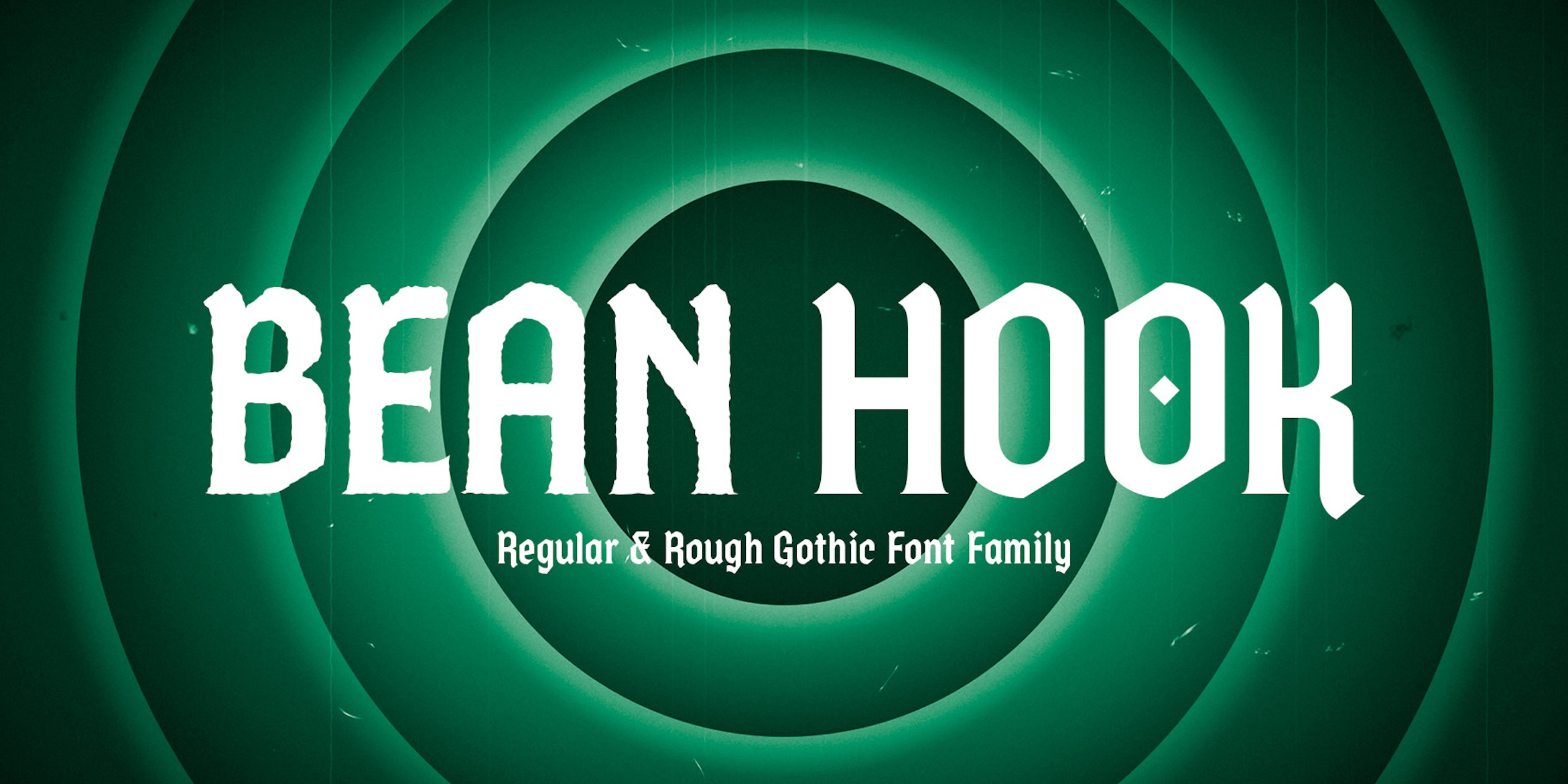
Bean Hook Font is perfect for a wide range of design applications including coffee shop branding, artisanal cafe signage, organic product packaging, rustic restaurant menus, farm-to-table marketing materials, cozy bistro graphics, specialty coffee roaster logos, agricultural company branding, handcrafted food labels, and warm editorial layouts.
What makes Bean Hook Font exciting is its charming rustic appeal and handcrafted warmth that perfectly captures the authentic spirit and artisanal quality of small-batch coffee culture and farm-fresh food experiences. This delightful typeface brings a sense of organic authenticity and cozy comfort to any project with its carefully crafted letterforms that showcase natural curves and handmade character details reminiscent of traditional coffee bean hooks and artisanal craftsmanship. The font's earthy character shapes and inviting proportions create an atmosphere of genuine hospitality and artisanal quality that resonates with audiences seeking authentic experiences, sustainable practices, and handcrafted excellence, making it an ideal choice for brands emphasizing organic quality, local sourcing, and artisanal craftsmanship.
The Bean Hook Font family includes multiple weights and styles designed to accommodate various artisanal and organic design requirements. The collection typically features regular, bold, light, and handcrafted variations, each maintaining the font's signature rustic aesthetic while providing comprehensive design flexibility. Additional coffee symbols and organic ornaments enhance the family's creative potential for farm-focused design projects.
This premium Bean Hook Font Free Download represents a wonderful opportunity for designers to explore artisanal typography trends with authentic coffee culture appeal. The font's innovative approach incorporates traditional craftsmanship principles and organic design aesthetics that bring genuine artisanal authenticity to contemporary food service and agricultural projects. Its versatile nature makes it suitable for both digital applications and print materials, ensuring consistent brand representation across food service, agricultural, and organic sectors.
Professional designers appreciate Bean Hook Font's exceptional warmth and comprehensive character support. The font includes extensive punctuation marks, numerical figures, artisanal symbols, and international language capabilities, making it perfect for global organic brands and international coffee culture projects. Its organically optimized spacing and kerning ensure professional results in cafe branding, packaging, and agricultural marketing applications.
The increasing popularity of Bean Hook Font in the food service community reflects its ability to enhance brand authenticity and create memorable visual experiences that celebrate coffee culture and artisanal food traditions. Whether used for coffee shop branding, organic product packaging, or farm-to-table creative projects, this font delivers exceptional results that honor the craftsmanship of artisanal food culture and sustainable agriculture.